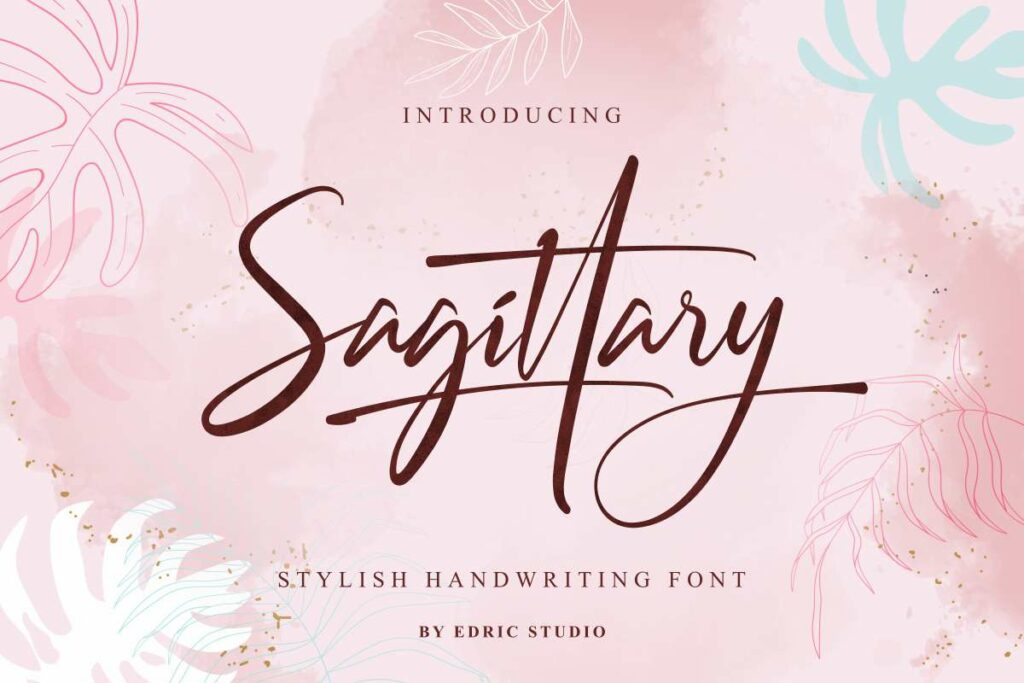
Sagittary Font
Sagittary is a stylish handwriting script font with signature style created by EdricStudio. The lines in this font will bring out undeniable beauty and suitable for industries like: architect, author, cosmetic, craft, homeware, publishing, salon & spa, wedding organizer, etc. Sagittary Font comes with a full set of Uppercase and Lowercase Basic Characters, Number, a large range of Punctuation and Symbol, Ligature, Alternate, Swoosh.
Sagittary Handwritten Script Font